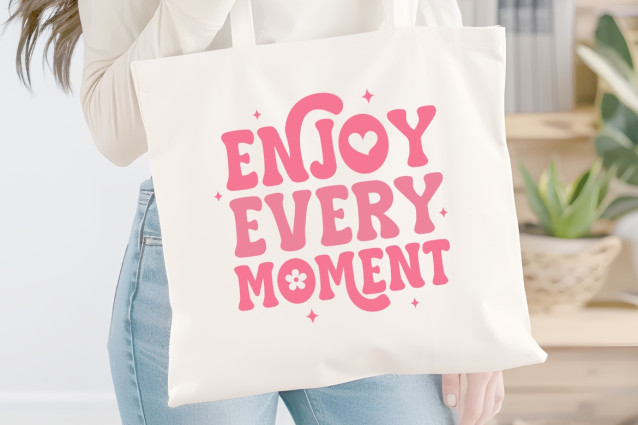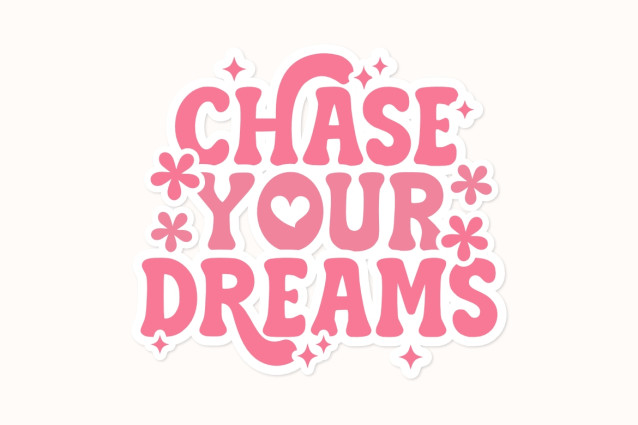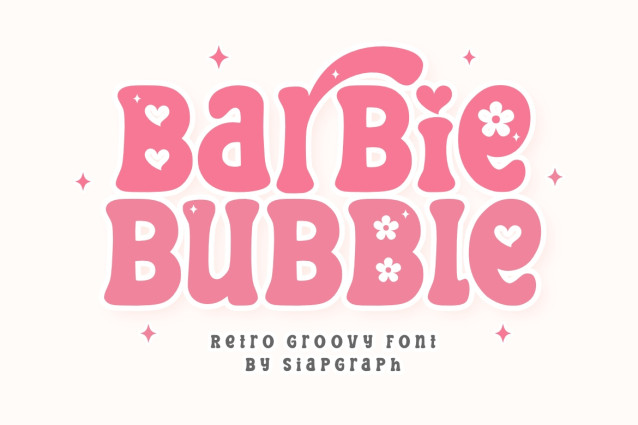
Barbie Bubble is a retro groovy font that captures the playful, fun, and iconic aesthetic of the 70s with a modern, bubbly twist. Featuring thick, rounded, and bouncy letterforms, this typeface is expertly crafted to give your designs a soft, lovely, and friendly appearance. Its bold and substantial construction is specifically optimized for the crafting community, ensuring a seamless and frustration-free experience for vinyl cutting, sublimation, and high-quality digital printing.
Perfect for: creating high-impact SVG cut files, personalized stickers, kids’ party decorations, adorable nursery wall art, custom t-shirt designs, greeting cards, playful branding, and vibrant social media graphics. Whether you are a professional Print on Demand (POD) seller or a dedicated DIY enthusiast, this font offers the ideal balance of readability and whimsical charm.